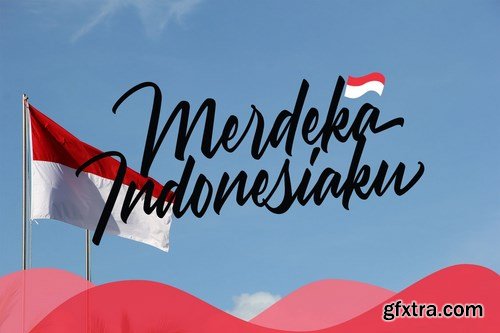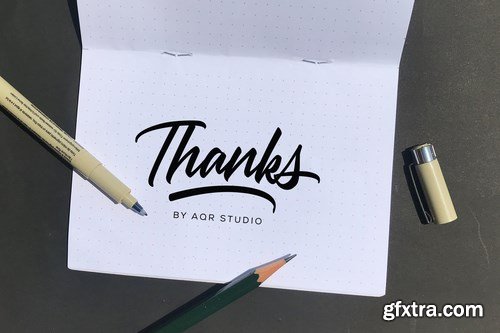
Kurrata is manual lettering with brush marker + bonus UNDERLINE, This font is a great combination for any product design and bussines. Kurrata is comfortable for vintage design, classic design, photography, branding design, T-Shirt and many more.